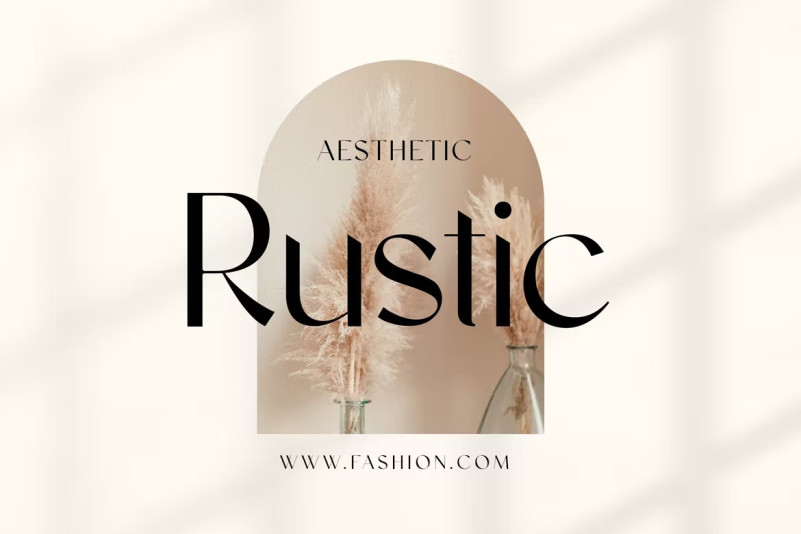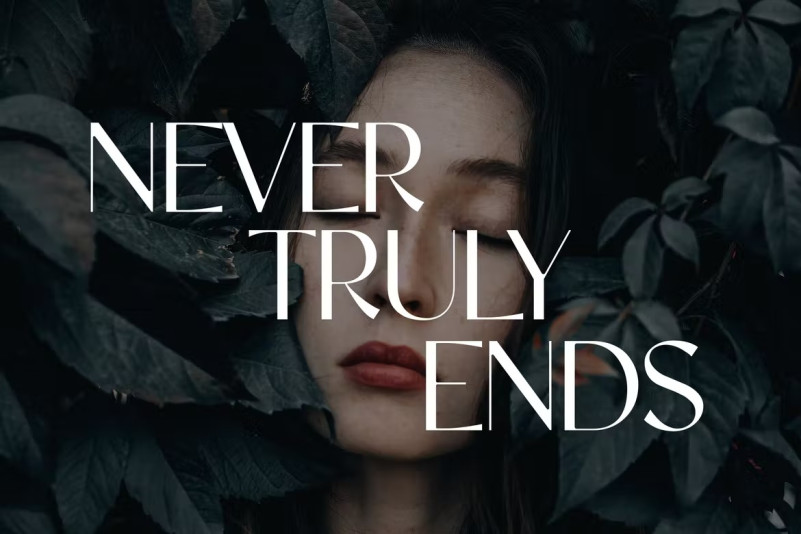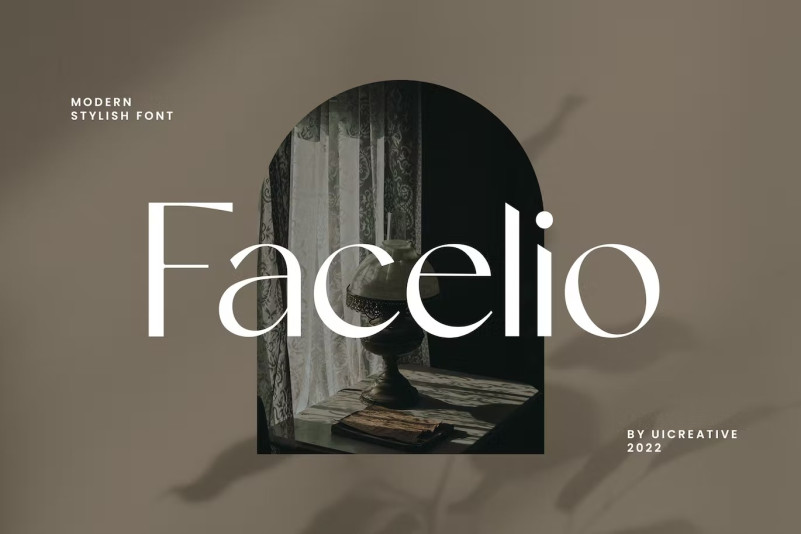
Facelio modern stylish sans serif font
This is our new product, the name is Facelio Modern Stylish Sans Serif Font . A modern and stylish sans serif font that is beautiful, classy, ​​elegant and modern. This font is ideal for a wide variety of projects, such as signature, stationery, logo, wedding, typographic quotes, magazine or book covers, website headers, apparel, branding, packaging design, etc. Additionally, fashion-related branding or editorial design exhibits qualities that are both masculine and